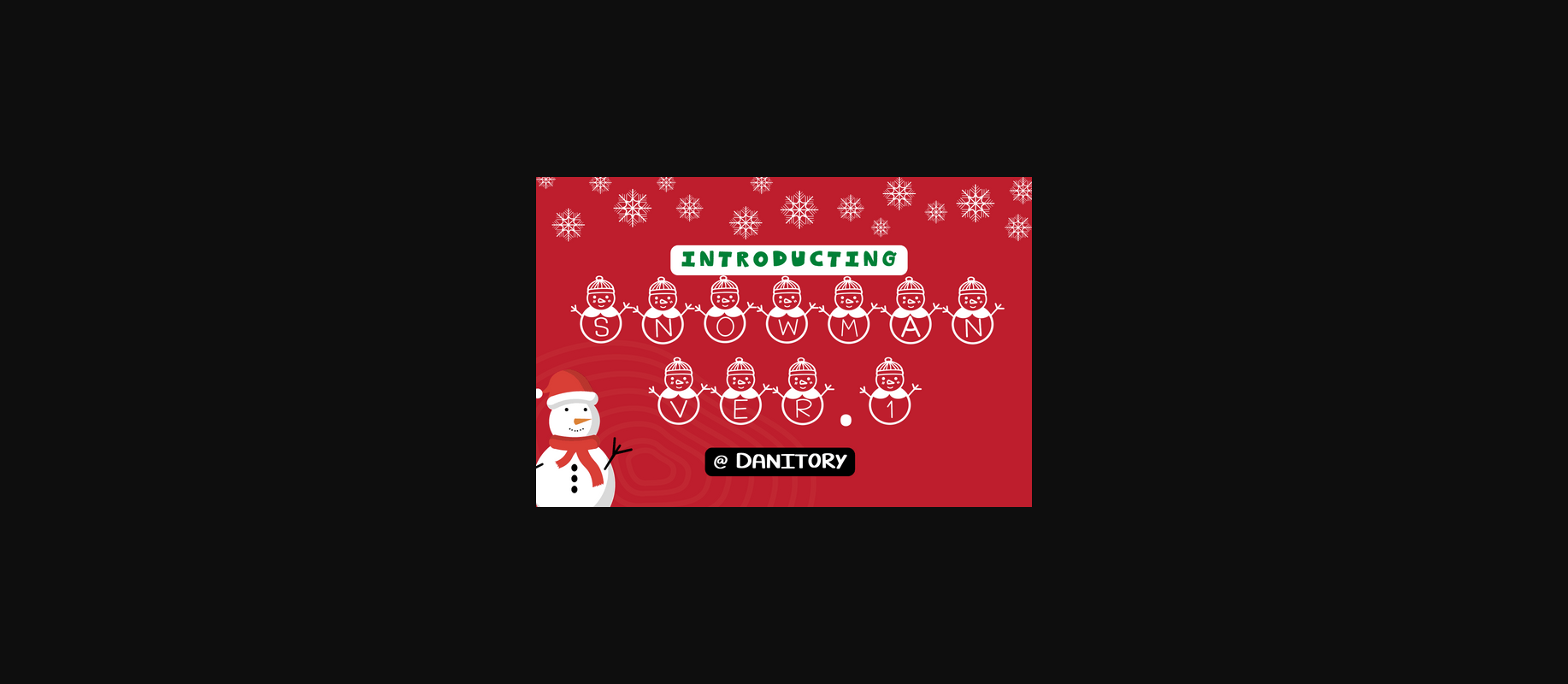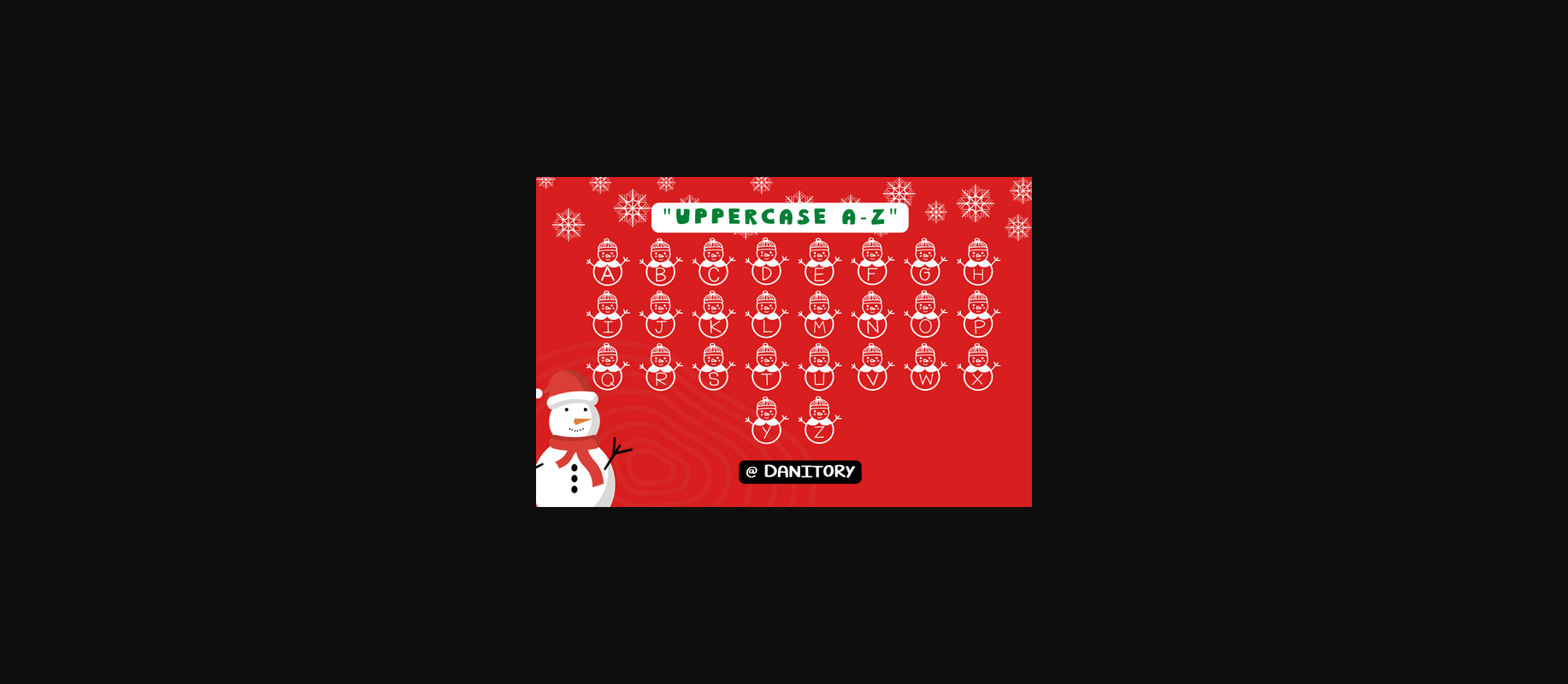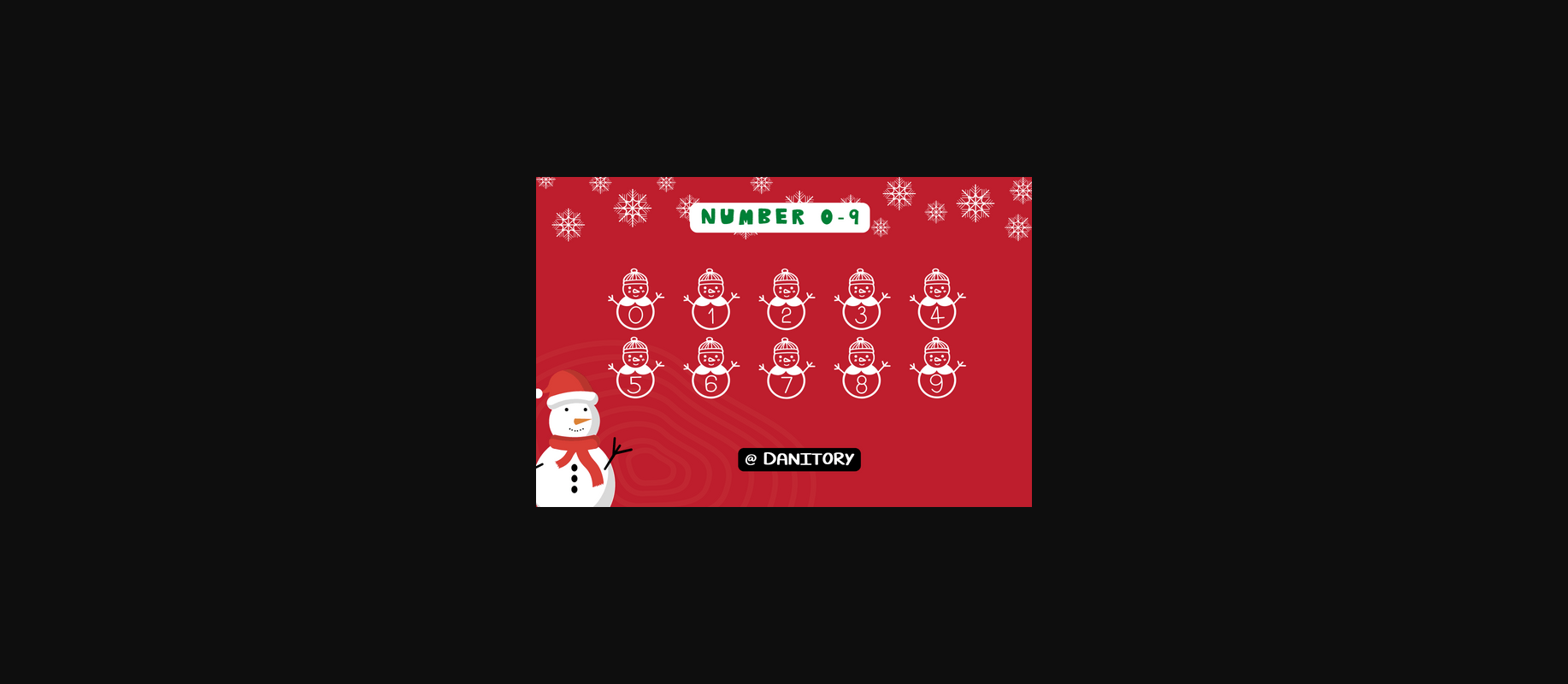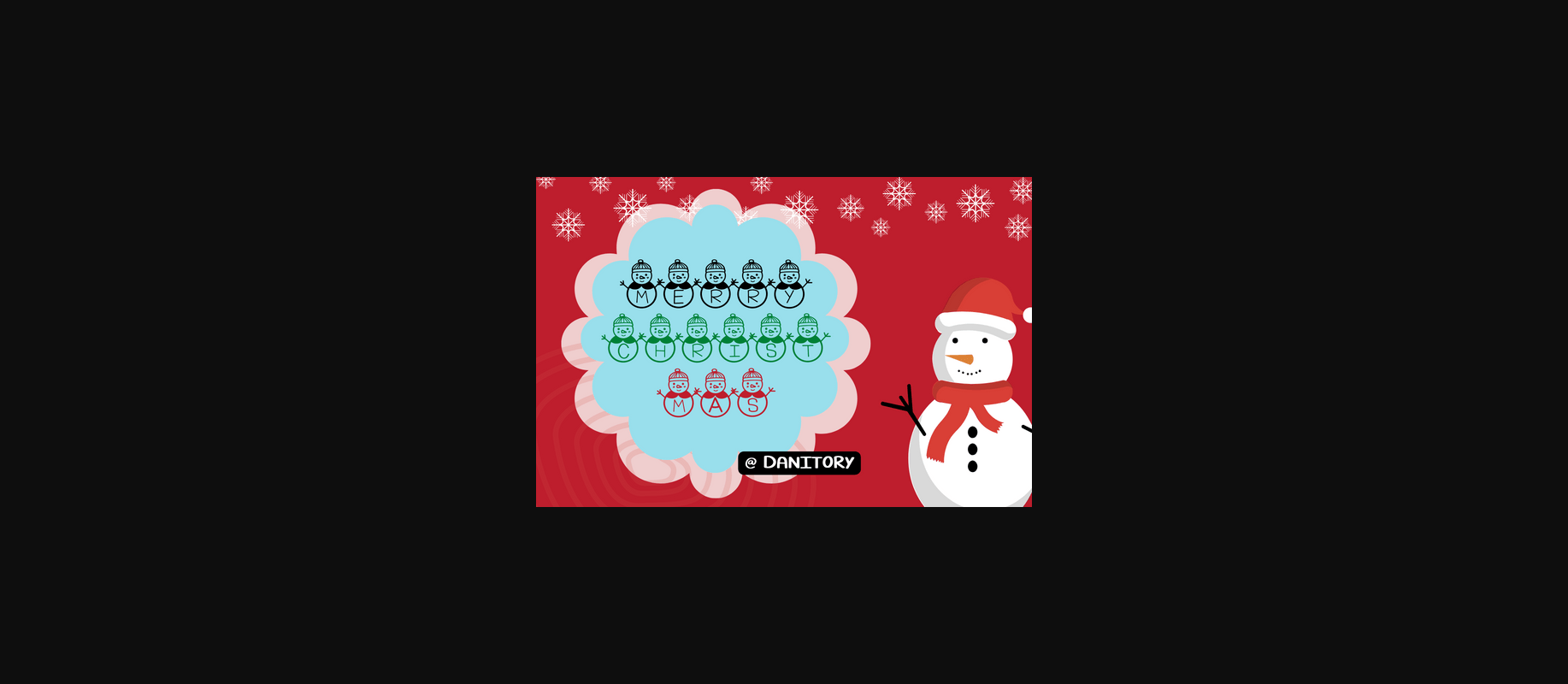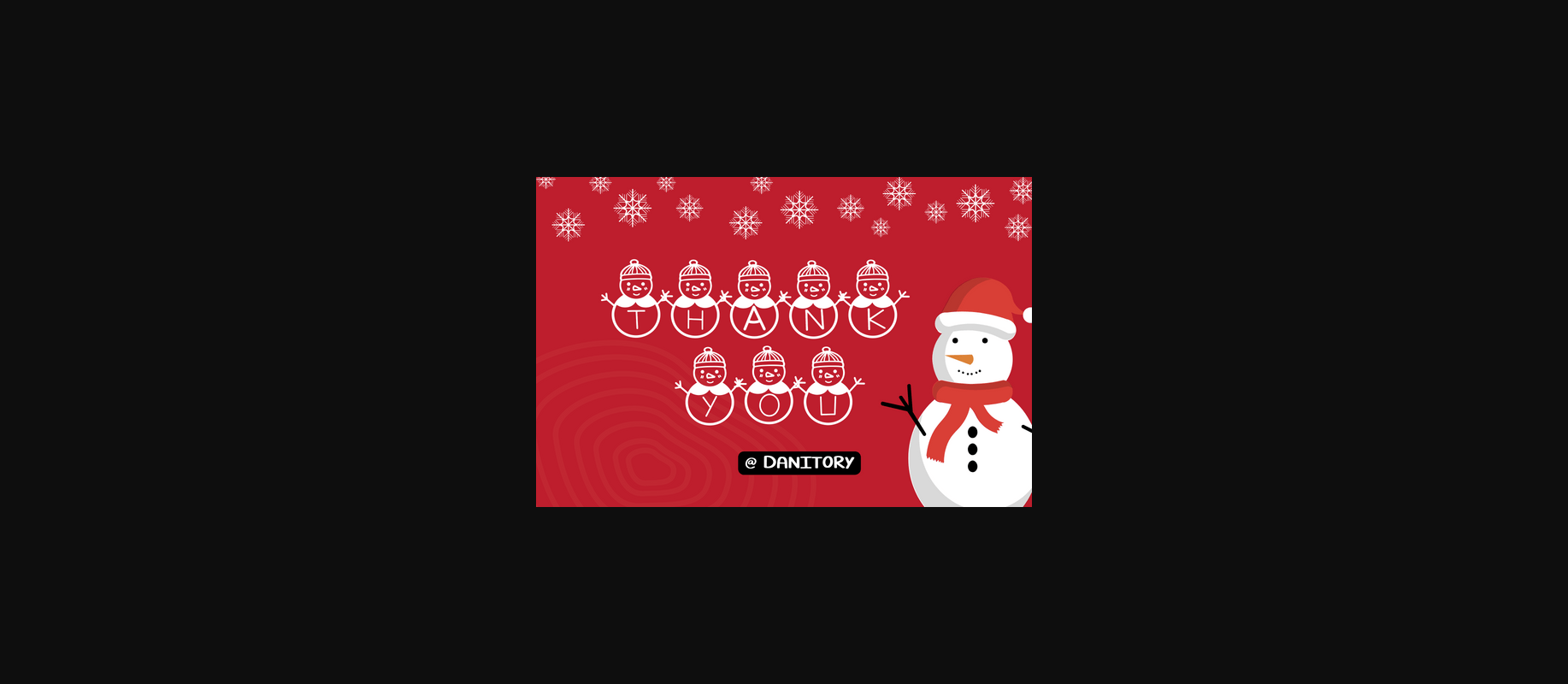
Snowman Version One Font
About Snowman Version One Font
Snowman Version One is a cute hat decoration font designed for the upcoming Christmas season. Add it to your festive crafty ideas and you will be amazed by the results!